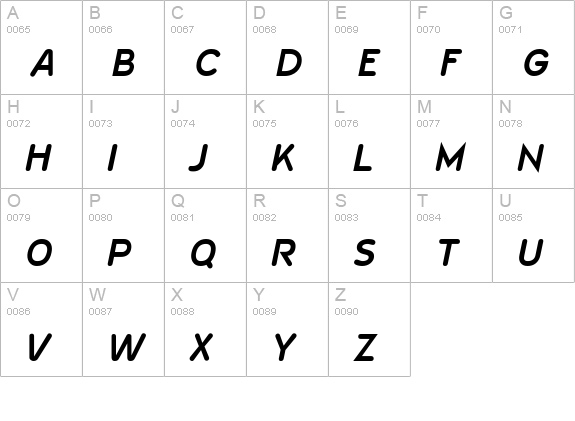
Wevli Bold Italic is a strong, high-contrast, italic variant in the Wevli typeface family \xE2\x80\x94 well suited to headlines, attention-grabbing titles, and strong calls-to-action.
The Wevli Bold Italic font is a stylish and modern typeface that exudes confidence and sophistication. Its bold and italic design adds a touch of flair to any project, making it perfect for headlines, titles, and branding materials. The sleek curves and sharp angles of each letter create a visually striking impact, while maintaining readability and legibility. What sets the Wevli Bold Italic font apart is not only its stunning aesthetic, but also its accessibility. This high-quality font is offered for free download on FontsMarket.com, allowing designers, creatives, and enthusiasts alike to easily incorporate this versatile typeface into their work. Whether you're working on a print design, digital project, or any other creative endeavor, the Wevli Bold Italic font is sure to make a bold statement and elevate your designs to the next level. Download it today and let your creativity shine with this exceptional font.